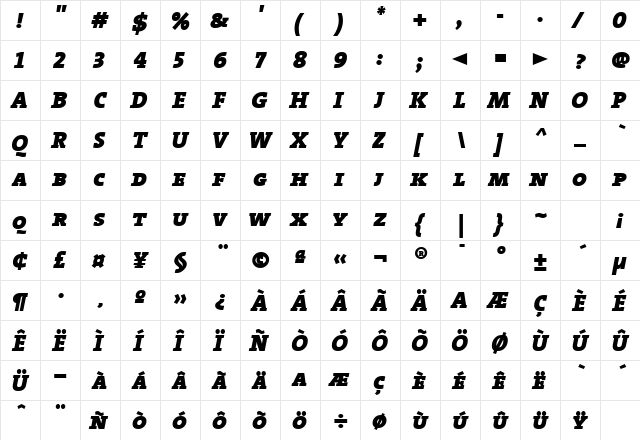
TheSerifBlack CapsItalic
Design Context for TheSerifBlack Typeface
TheSerifBlack carries the refined structure of traditional serif typography, with bracketed terminals and considered proportions that communicate credibility and craft. The dynamic lean of this cut emphasises speed and emphasis in any layout.
Pro Tip: Set TheSerifBlack with slightly loose tracking in headlines to let each letterform's detail read clearly at display sizes.